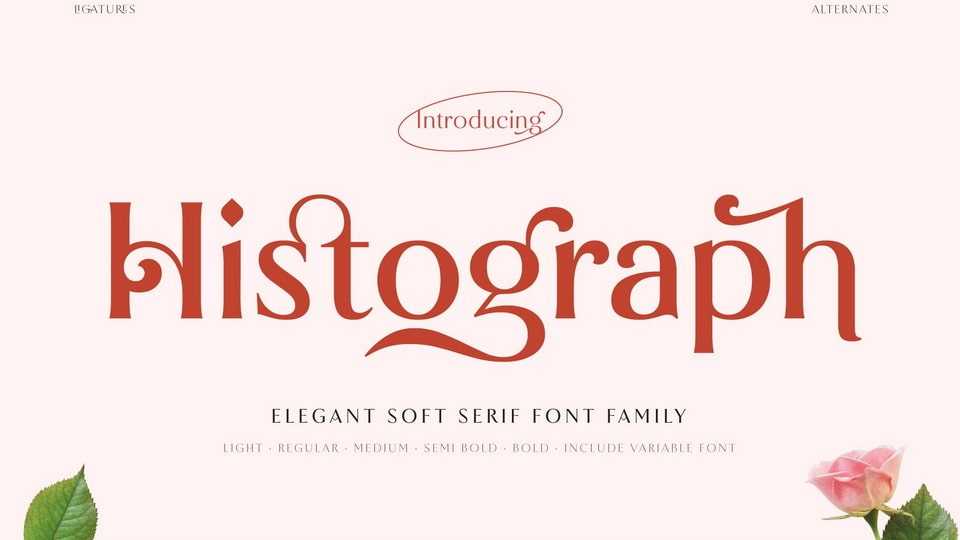
Download Histograph font, a display typeface that comes with an elegant and unique style. Histograph font is perfect for branding, logos, paragraph titles, wedding invitations, and much more.